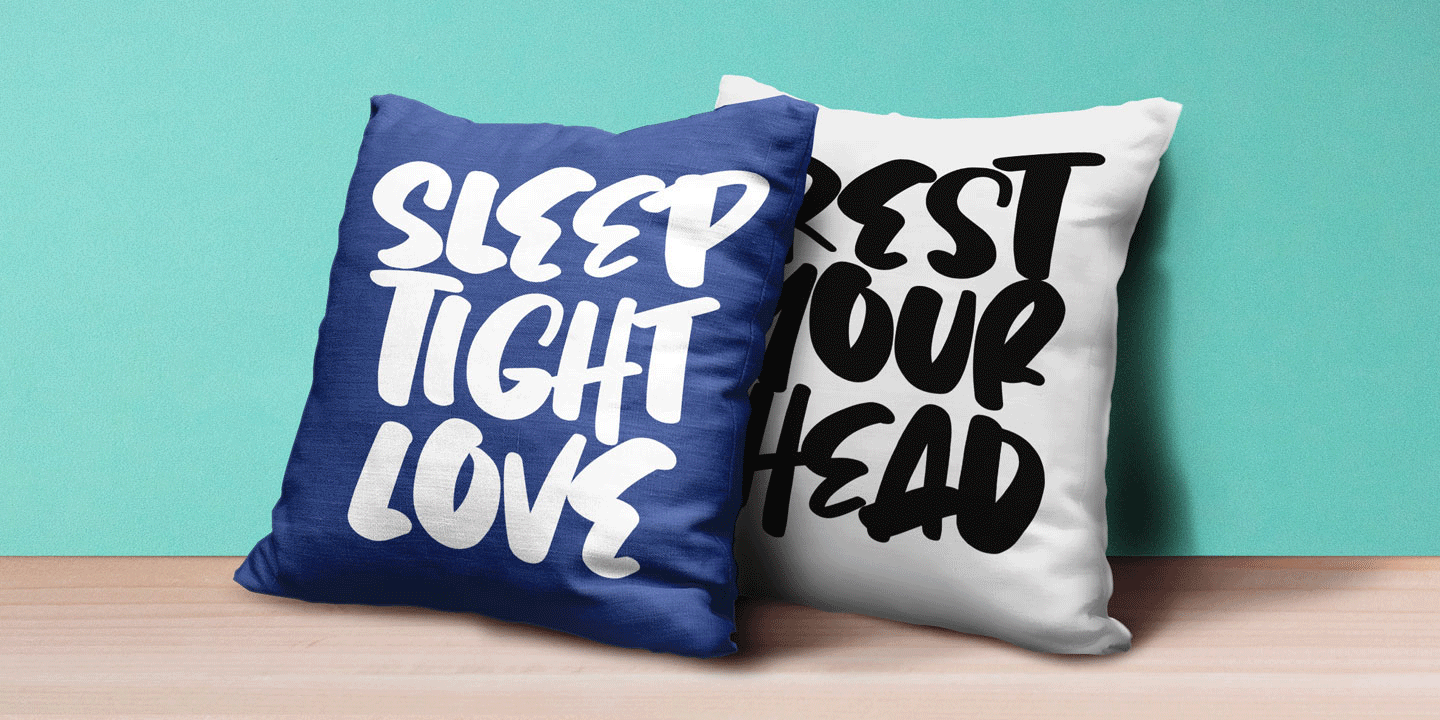
Chaotic Neutral Font is perfect for role-playing games, fantasy novels, tabletop gaming materials, comic book titles, alternative art projects, unconventional branding, creative workshops, indie publications, and experimental design communications. This unpredictable typeface brings creative chaos and artistic freedom to projects requiring unconventional typography with rebellious appeal and imaginative character.
What makes Chaotic Neutral Font exciting is its creative unpredictability that embodies the perfect balance between order and chaos with remarkable artistic freedom and experimental spirit that defies conventional design expectations. The font features irregular letterforms with spontaneous variations and creative character that reflects the essence of artistic rebellion and creative independence. Its free-spirited personality and unconventional nature make it irresistible for creative brands seeking typography that communicates artistic freedom while celebrating the beauty of controlled chaos and creative experimentation.
The Chaotic Neutral Font family includes experimental weights and creative styles: Light, Regular, Medium, Bold, and distorted variations with chaotic alternates and artistic symbols. Each weight maintains the font's unpredictable character while offering designers unlimited creative flexibility for alternative branding and experimental design applications requiring artistic rebellion and unconventional presentation.
Whether you're designing for gaming communities or creative collectives, Chaotic Neutral Font Free Download provides designers with a rebellious, creativity-focused typeface solution. The font's chaotic aesthetics and experimental styling make it ideal for indie game developers, alternative art galleries, creative studios, and unconventional entertainment venues. Its unpredictable presence ensures your message communicates creative freedom and artistic independence while maintaining excellent experimental readability. The comprehensive character set includes artistic symbols and chaotic decorations, making it perfect for creating provocative headlines and brand identities that celebrate creative rebellion and establish memorable connections with audiences seeking authentic alternative experiences and unconventional artistic expression.